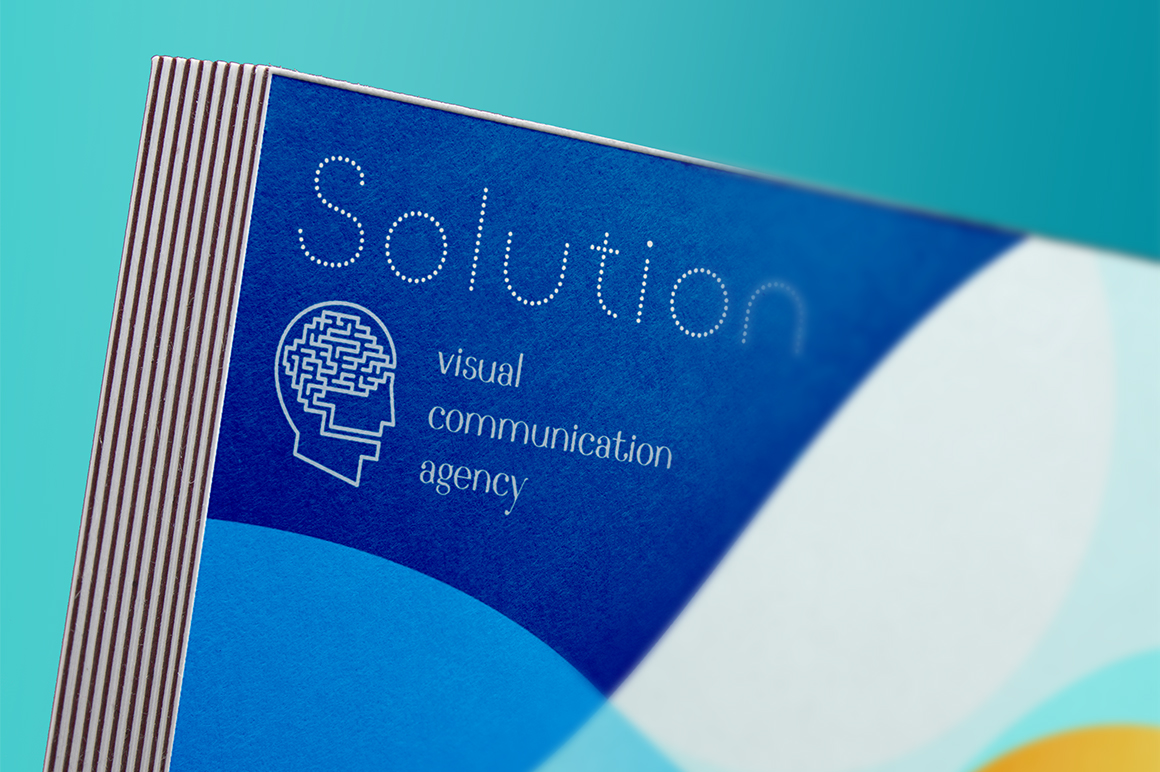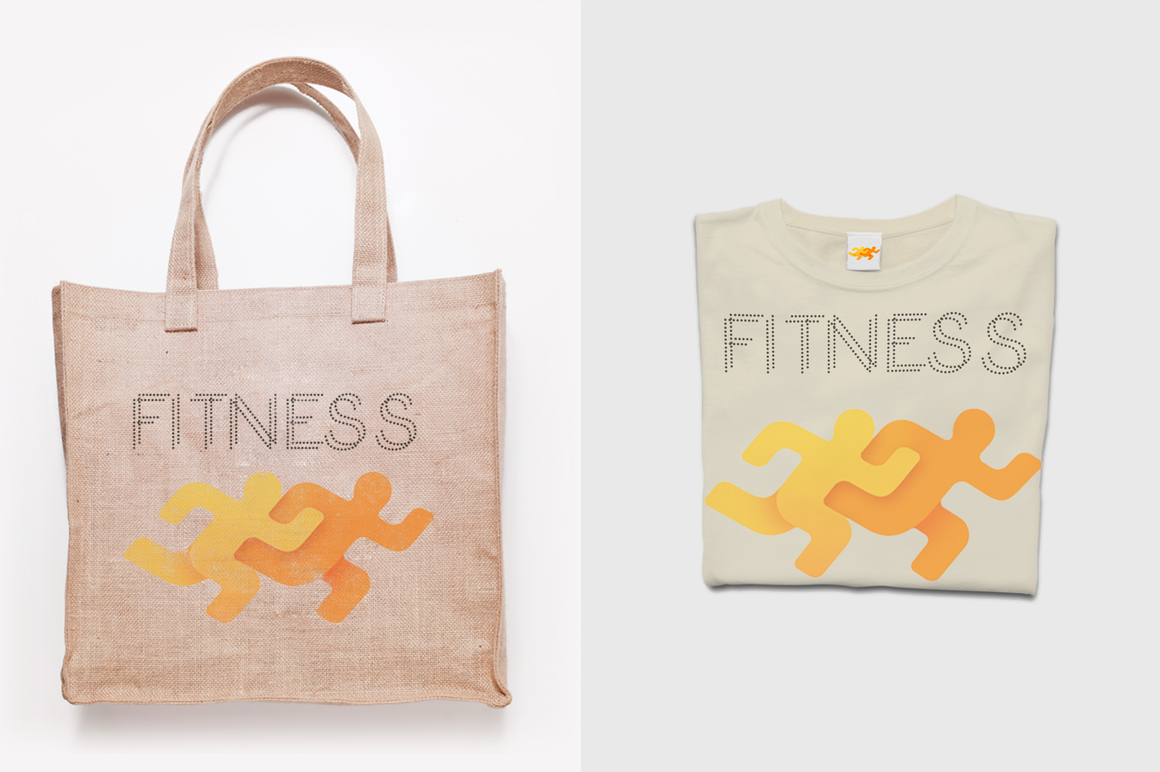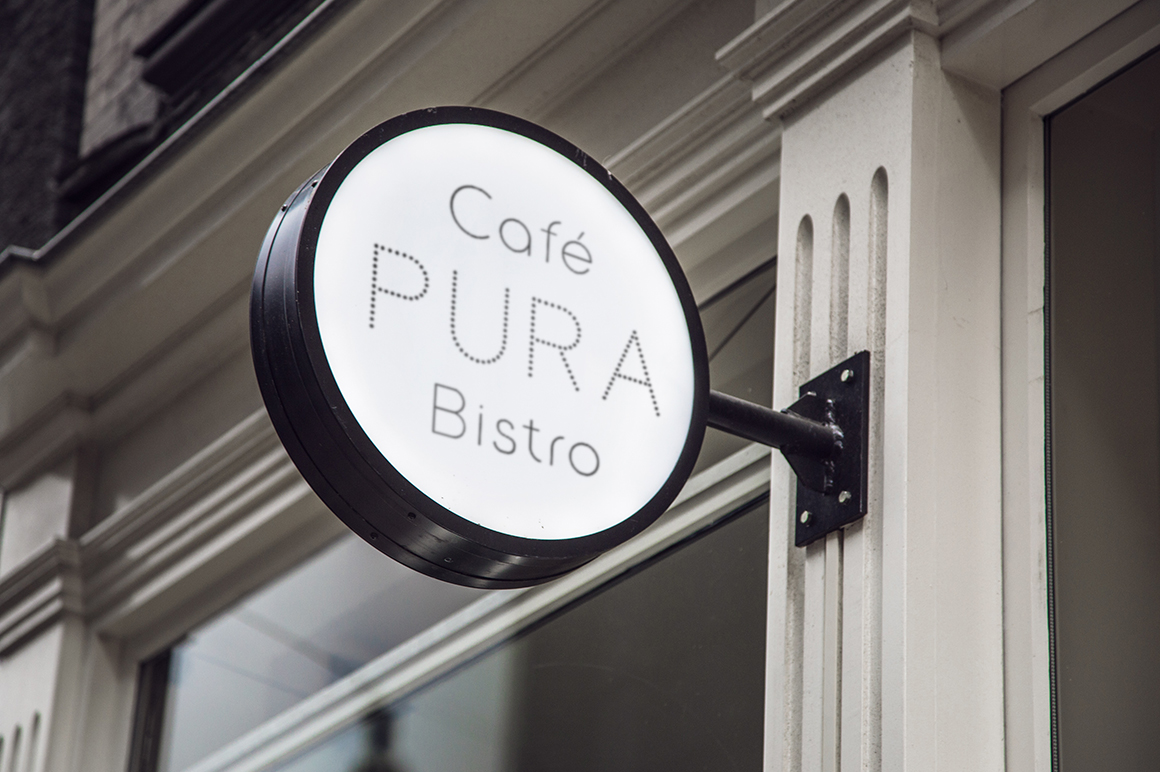
Introduction to Laser Dots Font
Have you ever found yourself staring at a blank canvas, trying to bring a creative project to life, only to be stuck on the perfect font? We’ve all been there. But what if I told you that the solution is just a few clicks away? Enter the Laser Dots Font, a game-changing design resource that’s about to revolutionize your workflow.
With its sans serif-based display font and unique dotted aesthetic, the Laser Dots Font is the perfect addition to any creative project. Whether you’re working on a digital design, a print campaign, or even a social media graphic, this high-quality font is sure to elevate your design to the next level. And the best part? It’s a free download, making it an accessible resource for designers of all levels.
So why is the Laser Dots Font so valuable for designers? For starters, its transparent background makes it incredibly versatile, allowing you to layer it over images or use it as a standalone element. And with its high-quality design, you can trust that your project will look professional and polished. Whether you’re a seasoned pro or just starting out, the Laser Dots Font is an essential design resource that’s sure to become a staple in your toolkit.
Key Features of Laser Dots Font
- Unique, high-quality design resource featuring a futuristic and neon aesthetic, ideal for creative projects.
- Includes a transparent background, allowing for seamless integration into various design elements.
- High-resolution design (300 DPI) for crisp and clear display, even at large sizes.
- Perfect for use in creative projects, such as graphics, logos, and typography, where a modern and edgy look is desired.
- Easy to customize and manipulate, making it a valuable design resource for professionals and hobbyists alike.
Honest Review: Laser Dots Font
As a designer, I’m always on the lookout for unique and high-quality design resources to elevate my creative projects. The Laser Dots Font caught my attention with its futuristic vibe and versatility.
- ✨ Transparent background option for seamless integration with any design.
- ✨ Variety of colors and styles to suit different design needs.
- ⚠️ Limited font sizes available, which may not be suitable for all design applications.
- ⚠️ Some users may find the font too bold or overpowering for certain designs.
Overall, I’m impressed with the Laser Dots Font’s potential to add a touch of futurism to my designs. While it may have some limitations, its free download and versatility make it a great addition to any design library.
I would recommend the Laser Dots Font to designers working on high-impact creative projects, such as technology or sci-fi themed designs, where its unique aesthetic can shine.
Laser Dots Font
In PowerPoint and Word, you can use the Laser Dots Font by selecting it from the font menu and adjusting the size and color to suit your needs.
To get the most out of the Laser Dots Font, experiment with different font sizes, colors, and styles to create a unique look. You can also combine it with other design elements to add depth and interest to your project.
The Laser Dots Font is perfect for creative projects such as infographics, social media graphics, and presentations. It’s also great for adding a touch of whimsy to your branding and marketing materials.
Alternatives to Laser Dots Font
1. Pixel Font
Pixel Font is a high-quality design resource that can be used for creative projects requiring a retro aesthetic. It’s ideal for use in video games, pixel art, and other digital media. When to use: For pixelated graphics, video games, and retro-style designs. How it compares: Pixel Font has a more pixelated look compared to Laser Dots Font, making it better suited for projects requiring a more blocky, 8-bit aesthetic.
2. Dot Matrix Font
Dot Matrix Font is a free download design resource that can be used for creative projects requiring a unique, industrial aesthetic. It’s ideal for use in technical illustrations, diagrams, and other visual aids. When to use: For technical illustrations, diagrams, and industrial designs. How it compares: Dot Matrix Font has a more industrial look compared to Laser Dots Font, making it better suited for projects requiring a more rugged, technical aesthetic.